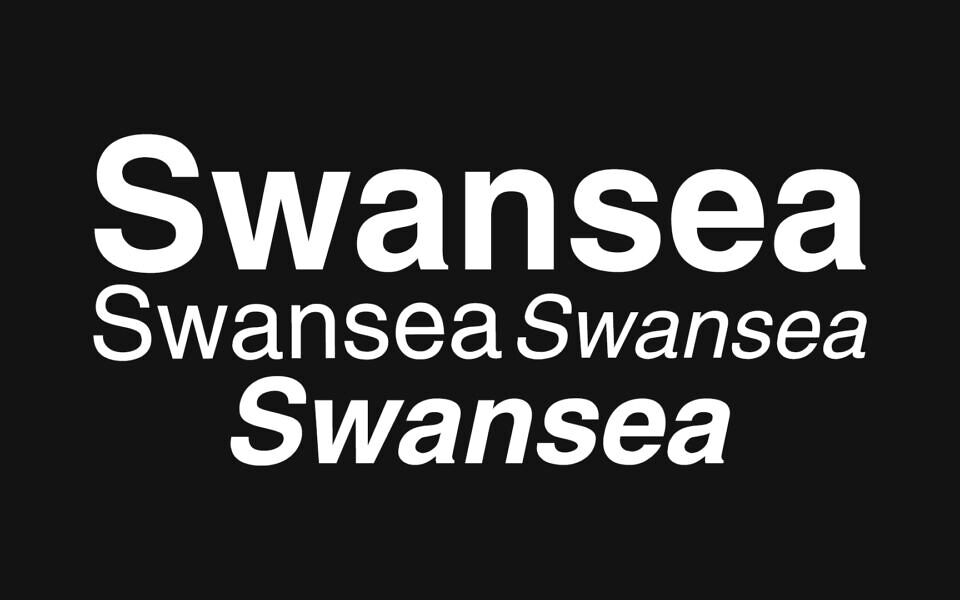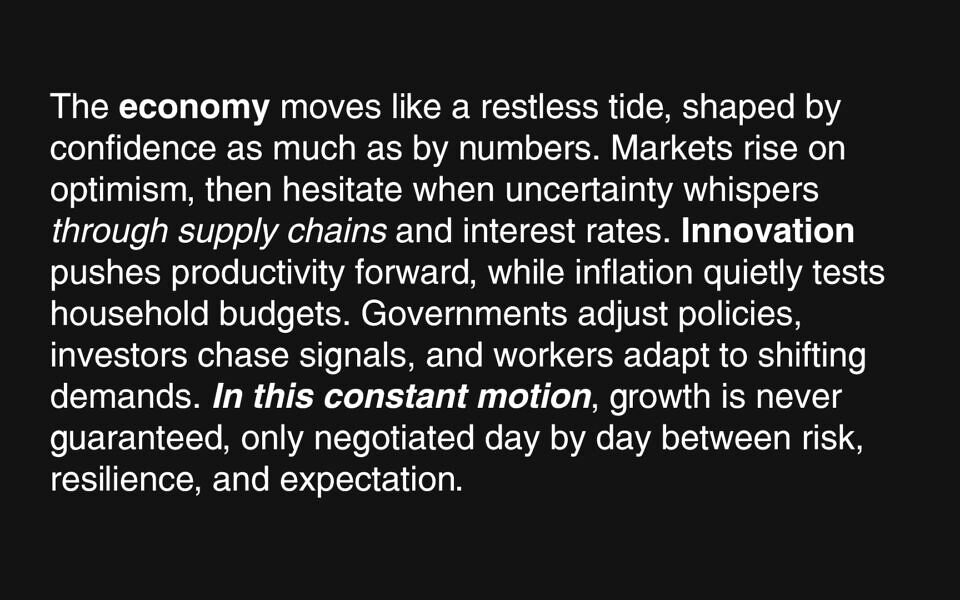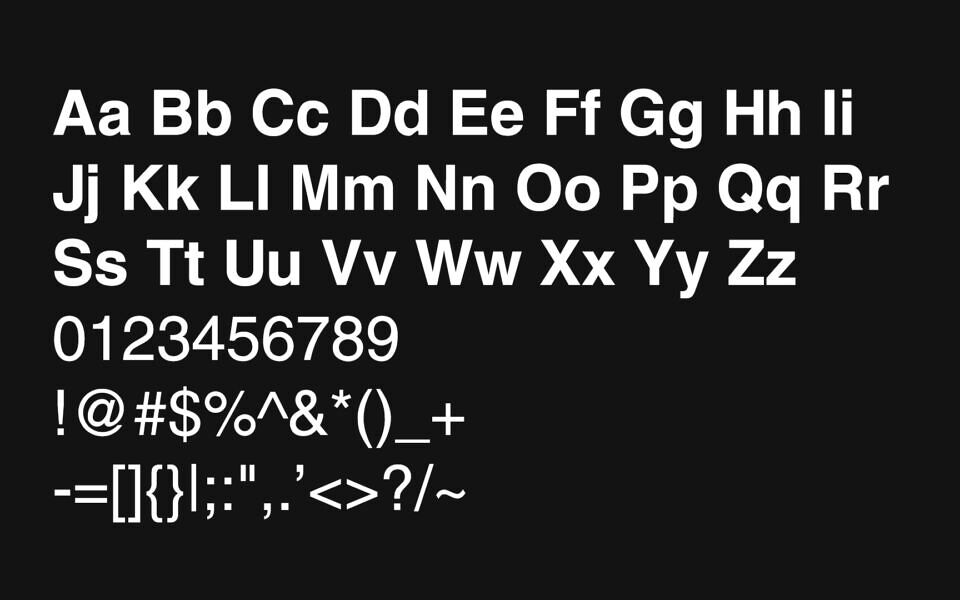
The Swansea font is a versatile, free sans-serif typeface designed by Roger White. Often recognized as a high-quality Helvetica alternative, it features a clean, neo-grotesque aesthetic that ensures exceptional legibility across digital and print platforms.
This comprehensive family includes Regular, Bold, and Italic styles, making it ideal for professional branding, web design, and body text. With its neutral character and modern geometry, the Swansea typeface provides a polished, timeless look for any creative project.